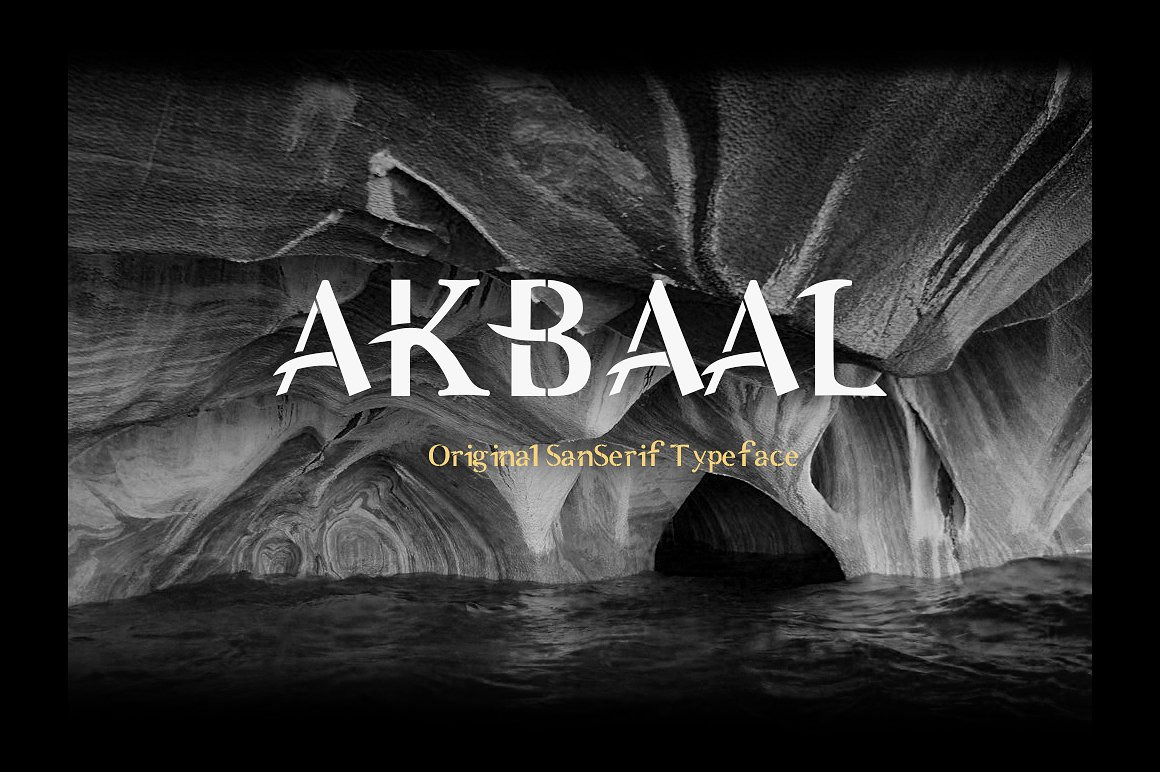
Akbaal Typeface
Introducing new typeface called Akbaal which is perfect for Logo, Logo type, quotes, apparel design, invitations, flyer, poster, greeting cards, product packaging, headers, printed quotes, cover album, etc.